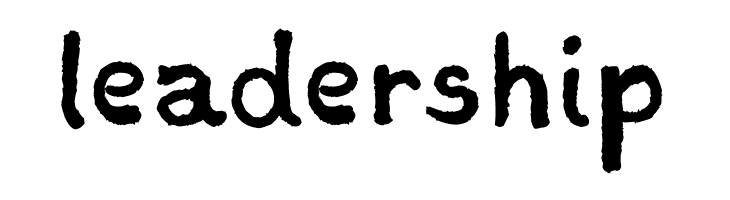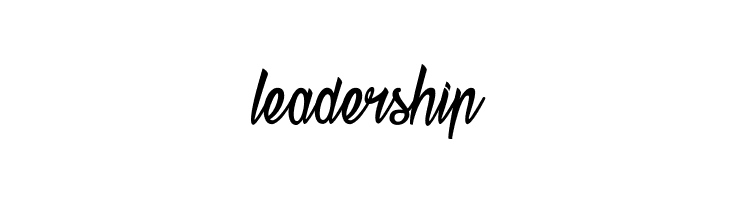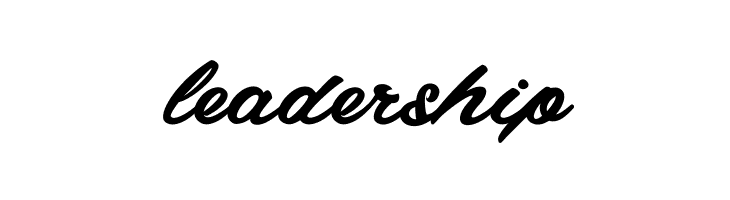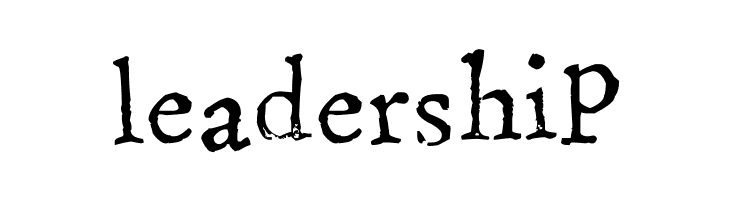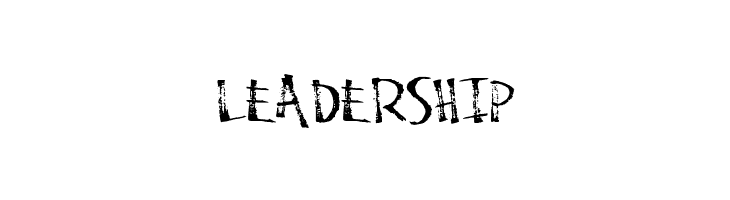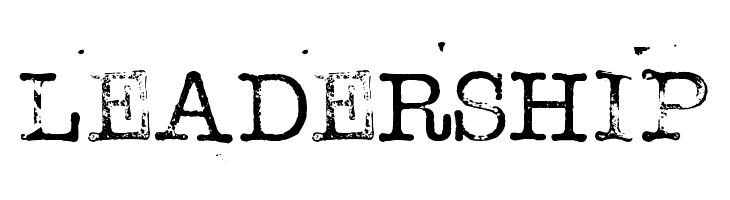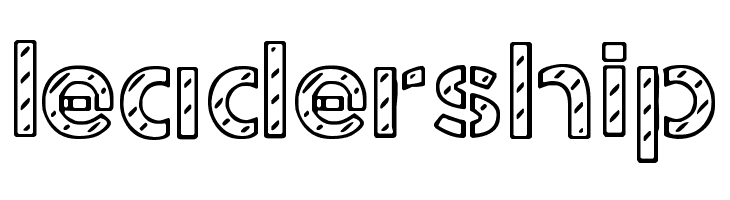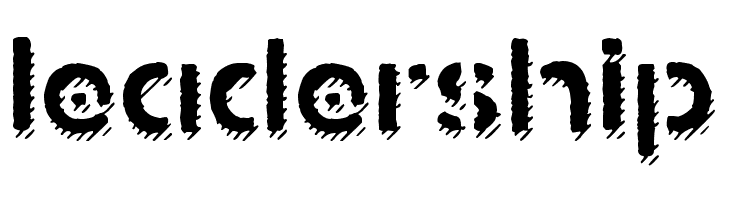
A bold, modern slab serif font with strong, block-like serifs.
A bold, hand-painted font with a rough, textured appearance.
A playful, bold font with rounded, thick strokes and a whimsical touch.
A bold, dynamic font with a mix of sharp edges and smooth curves, ideal for modern designs.
A bold, distressed font with a grunge, hand-drawn style.
A bold, decorative font with a stamped, striped effect.
A bold, geometric stencil-style font with a modern industrial feel.
A bold, shadowed font with a stamped, decorative style.
A bold, hand-drawn font with a rugged, vintage feel.
A decorative script font with elegant, flowing cursive letters and intricate flourishes.
A rustic, handcrafted font with a vintage letterpress style.
A playful, hand-drawn font with bold, outlined characters.
A distressed, vintage typewriter-style serif font with a textured, stamp-like appearance.
A modern, geometric font with uniform stroke width and a sleek, professional appearance.
A modern, geometric sans-serif font with a clean and professional appearance.
A bold, textured font with a distressed, grunge-like appearance.
A flowing, cursive script font with elegant, connected strokes.
A tall, narrow, hand-drawn font with a whimsical and artistic style.
A classic serif font with elegant curves and strong presence.
A modern, fluid font with a futuristic design and cohesive style.
A modern, playful font with smooth, rounded edges and creative character designs.
A bold, futuristic font with a unique diagonal striped pattern.
A bold, futuristic font with geometric, blocky characters and rounded corners.
A playful, bold font with rounded, bubbly characters and star accents.
A bold, decorative font with a dotted texture and strong outlines.
A playful and elegant script font with flowing, connected letters.
An elegant, decorative font with Art Deco influences and intricate detailing.